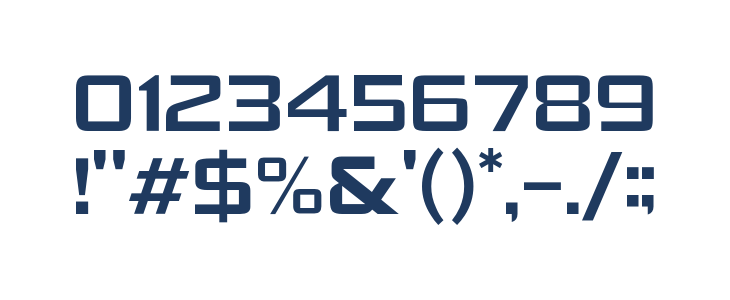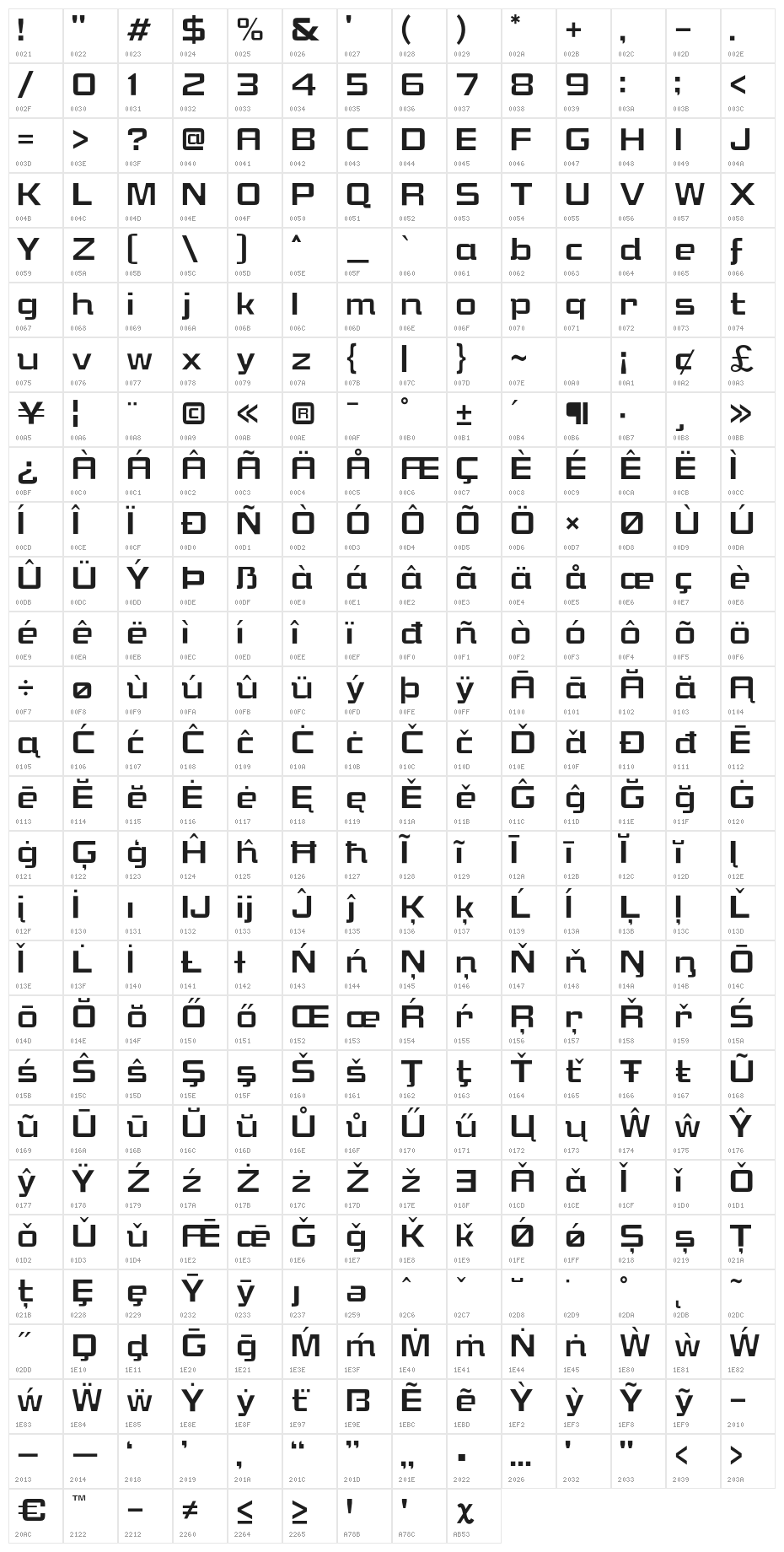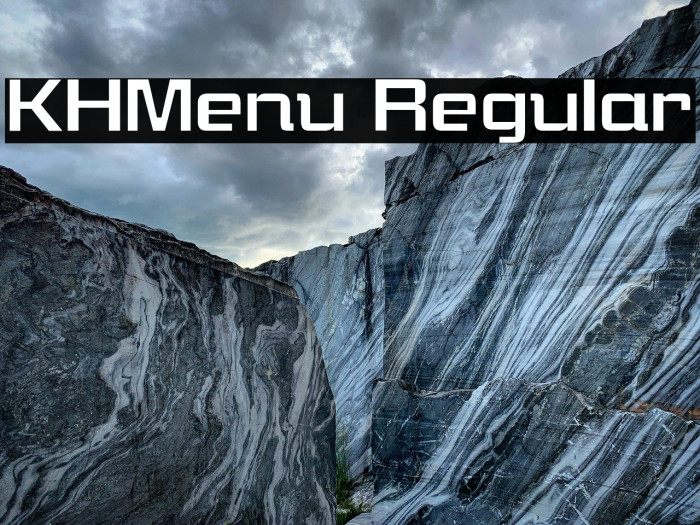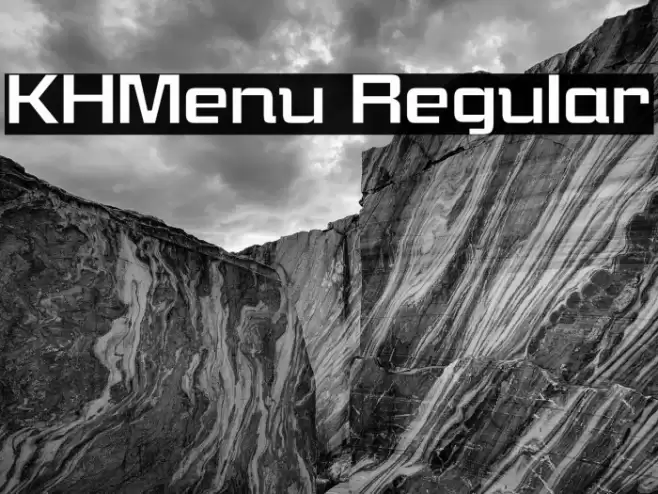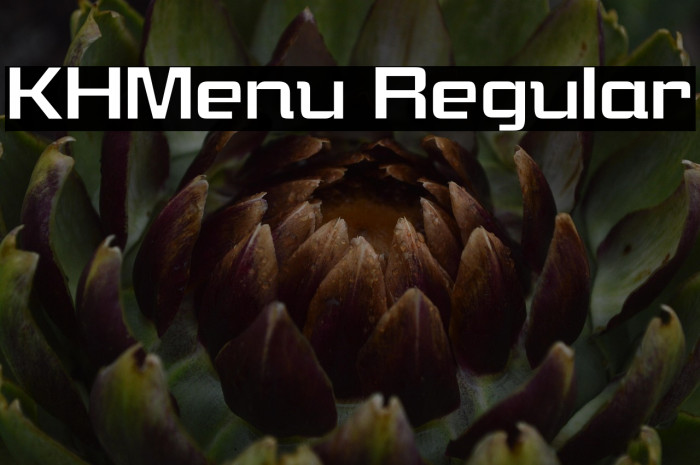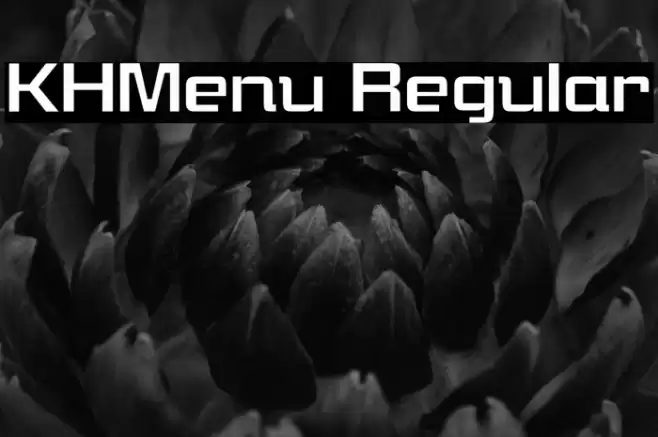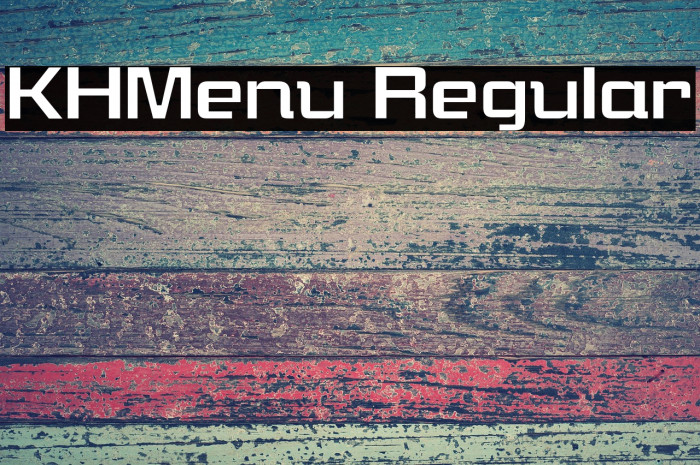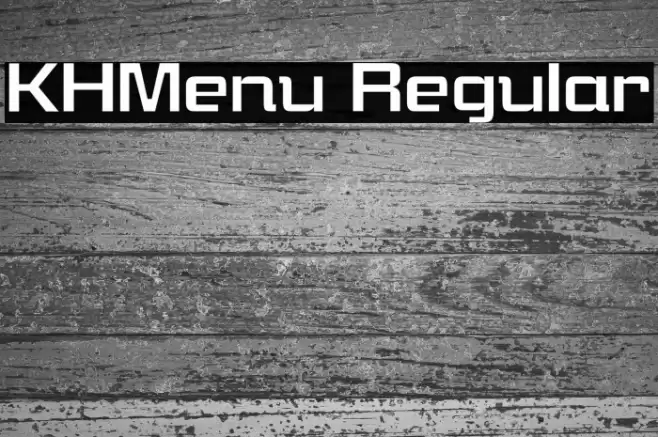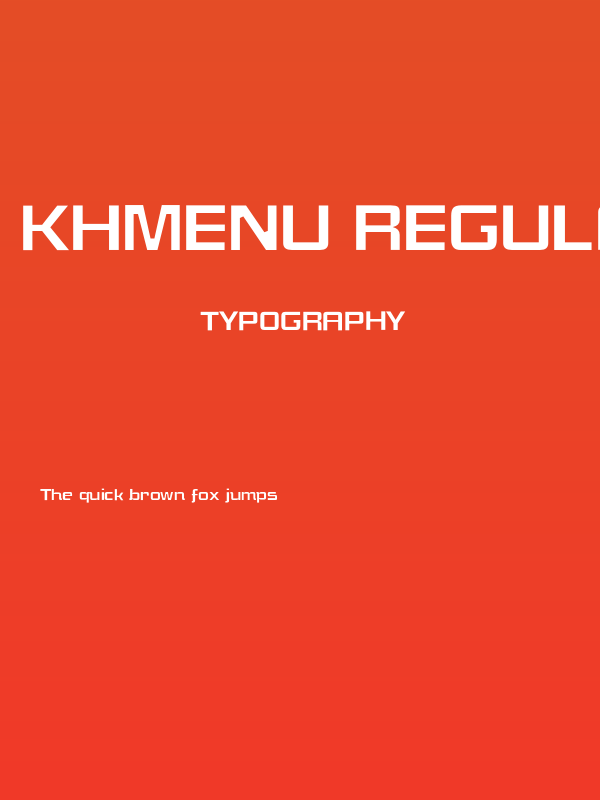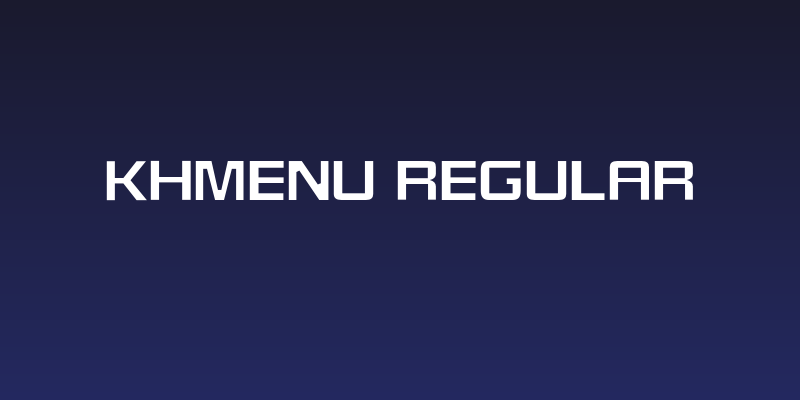
KHMenu Regular Font
KHMenu Regular Description
This font features a modern and geometric design with clean, straight lines and a uniform structure. The characters are bold and have a slightly condensed appearance, giving them a compact and efficient look. The uppercase letters are particularly striking with their strong presence, while the lowercase letters maintain a consistent style that complements the uppercase. The numerals are clear and easy to read, making them suitable for various applications. Special characters are designed with the same attention to detail, ensuring a cohesive overall appearance. This font is versatile, suitable for both digital and print media, and can be used in a variety of design projects.
| Use Case | Headlines, Logos, Digital Interfaces |
| Proposed Projects | Ideal for branding, advertising, digital interfaces, and editorial design. |